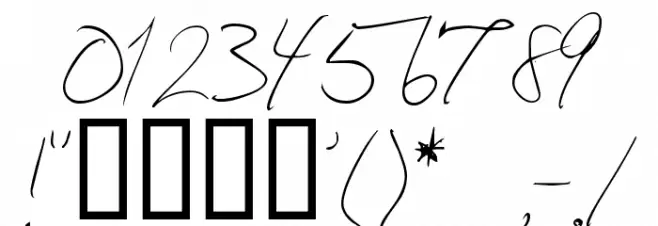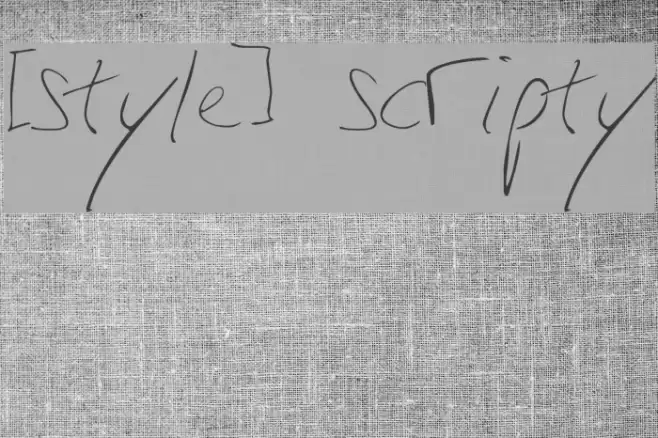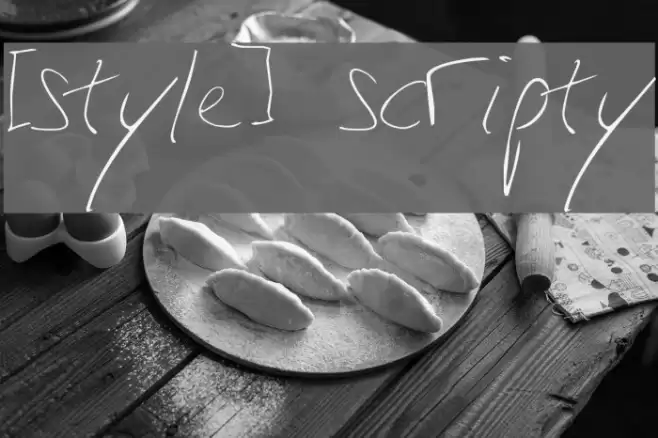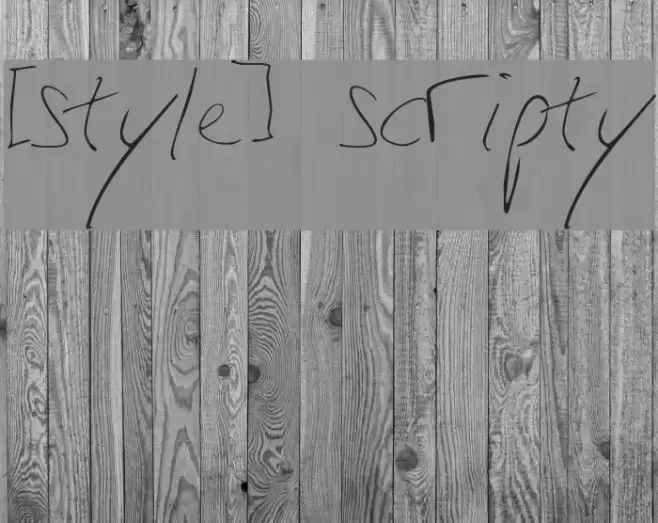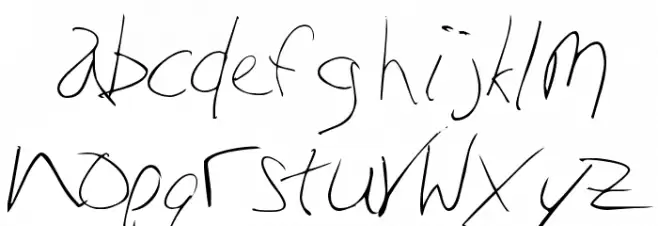
[style] scripty Font
[style] scripty Description
This font exhibits a casual, handwritten style with a natural flow and organic feel. The letters are slightly slanted, mimicking the fluidity of cursive handwriting. Each character is uniquely crafted, giving the font a personal and informal touch. The strokes vary in thickness, adding to the dynamic and lively appearance. This font is ideal for projects that require a personal or artistic touch, such as invitations, greeting cards, or creative branding. Its playful yet elegant style makes it versatile for various design needs.
| Overall Style | Casual, Artistic |
| Use Case | Headlines, Creative projects, Personal notes |
| Proposed Projects | Ideal for invitations, greeting cards, artistic branding, and creative projects. |